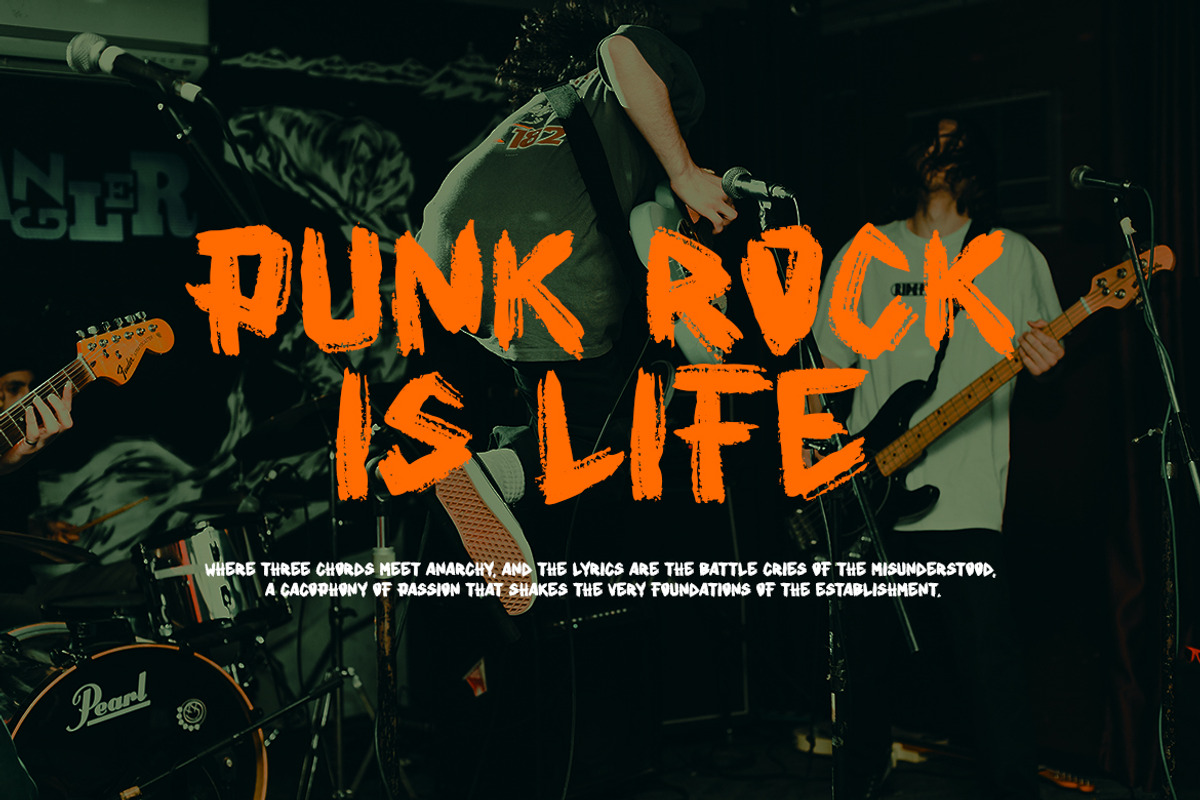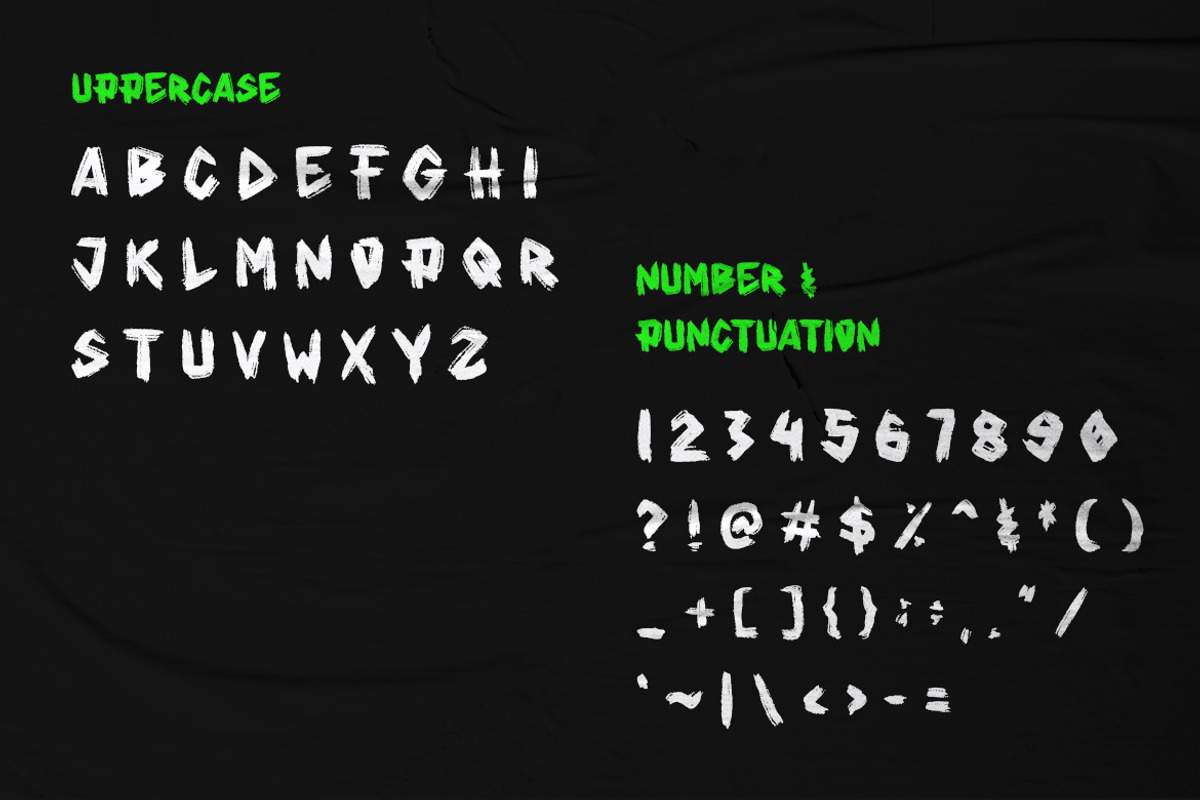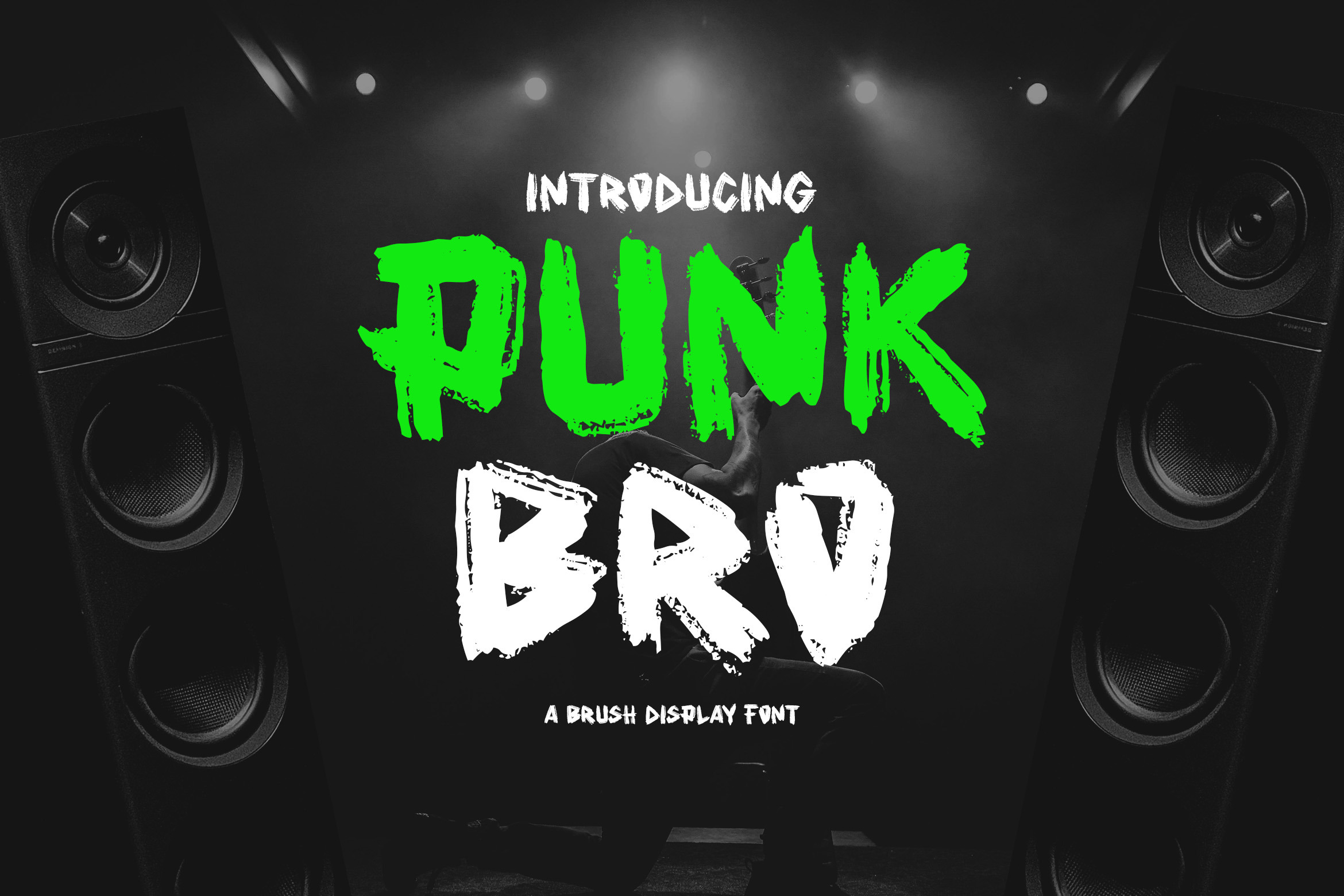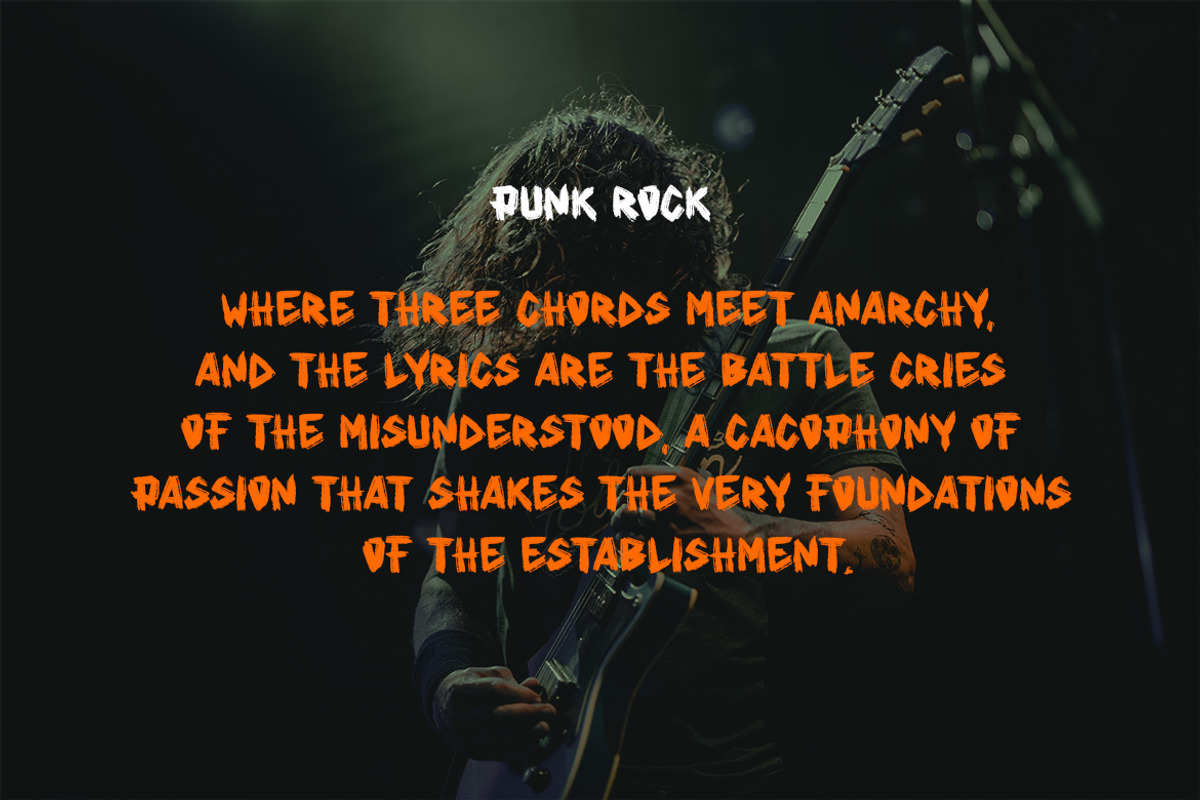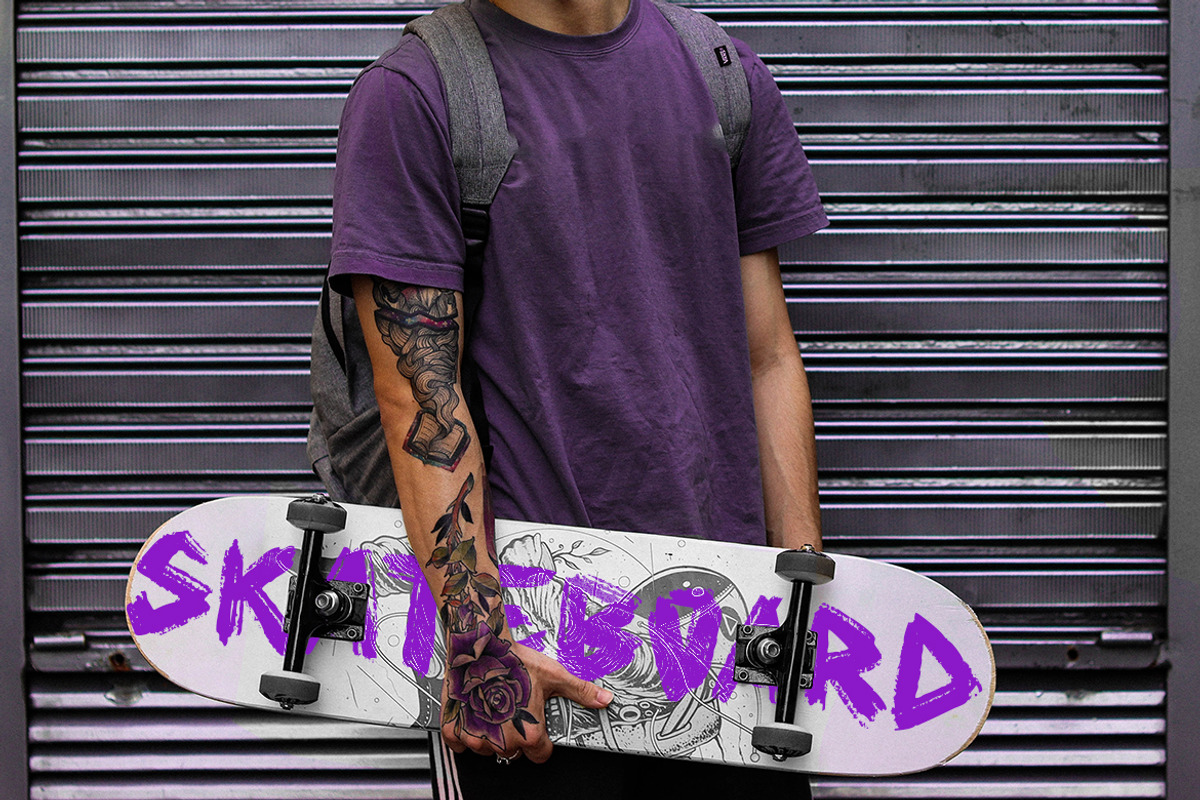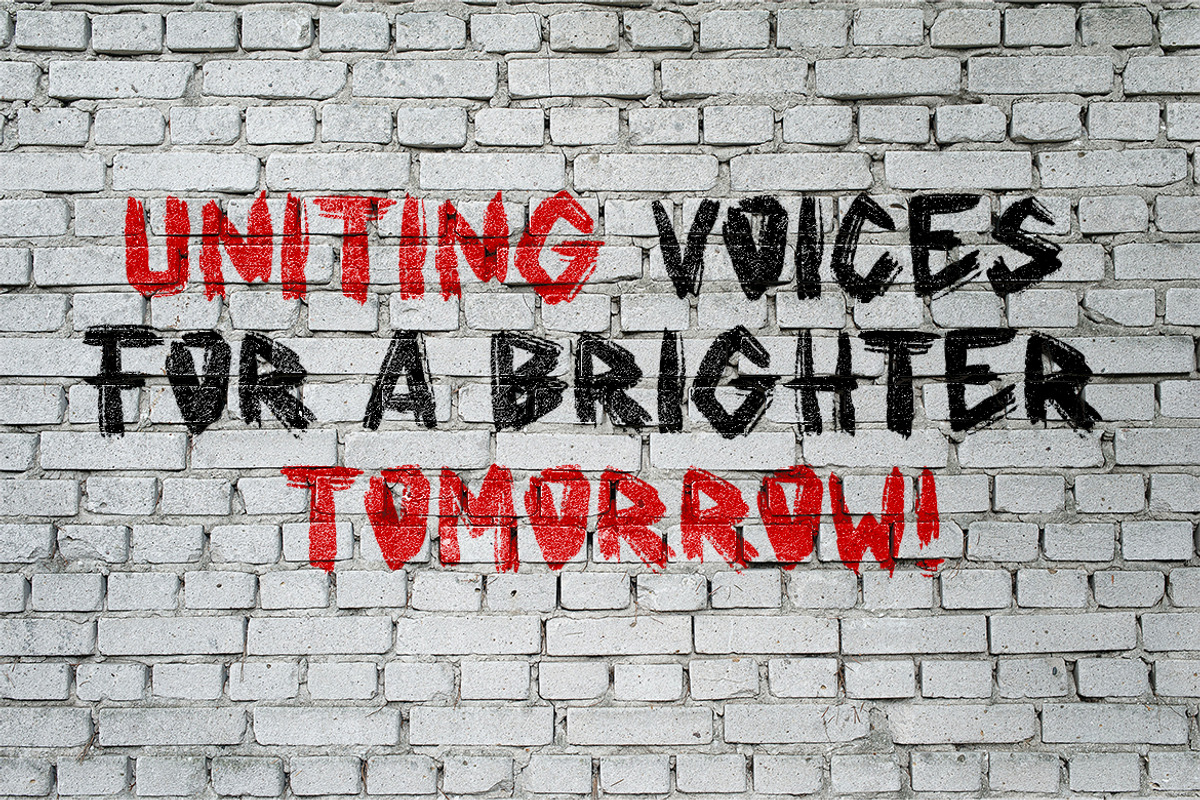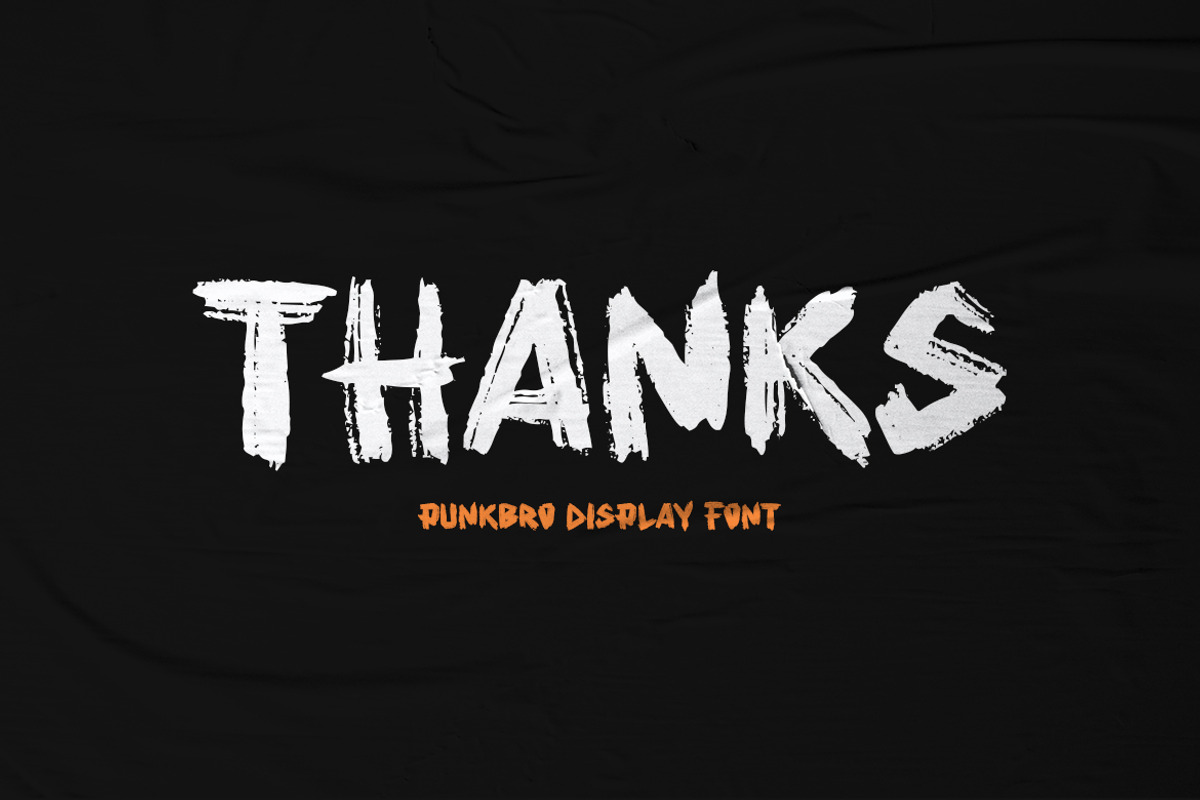
Punkbro- Brush Display Font
Punkbro- Brush Display Font is an awesome with modern cutouts, and a dynamic slant. Ideal for Poster titles, Flyer music event, Skateboarding, Urban street style, streetwear and monograms or other modern dynamic text. Punkbro compares favorably with legibility and size, creating the effect of power. Designed as a fast and dynamic font, but with a slightly different font design, check it out and grab it right away.